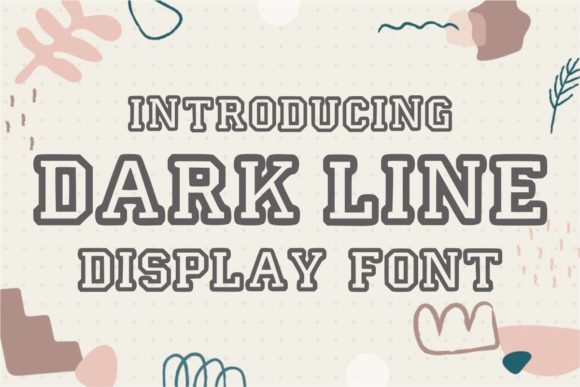
Embark on a typographic odyssey with Dark Line, an exceptional display font that exudes elegance and authority. Its bold, striking lines command attention, leaving an indelible impression on your audience. Whether you're crafting stunning presentations, designing eye-catching digital graphics, or creating heartfelt greeting cards, Dark Line is the font that elevates your creations to new heights.
Step into the realm of creative possibilities with Dark Line – a font brimming with versatility. Its adaptability knows no bounds, seamlessly complementing a vast array of projects, from captivating business presentations to heartfelt personal expressions. Unleash your imagination and let Dark Line guide you to typographic excellence, transforming your words into visual masterpieces.
With Dark Line, the boundaries of creativity dissolve, making way for boundless expression. Its bold, commanding presence captivates the senses, evoking emotions and leaving a lasting impact on your audience. Let Dark Line be the cornerstone of your creative endeavors, propelling your designs to the forefront and leaving an unforgettable mark on the world.
Beyond its aesthetic allure, Dark Line is a font imbued with practicality. Its meticulously crafted characters ensure effortless readability, ensuring your message is conveyed with clarity and impact. Whether you're crafting documents, designing presentations, or creating marketing materials, Dark Line ensures your words are not just read, but absorbed, leaving an indelible impression on your audience.